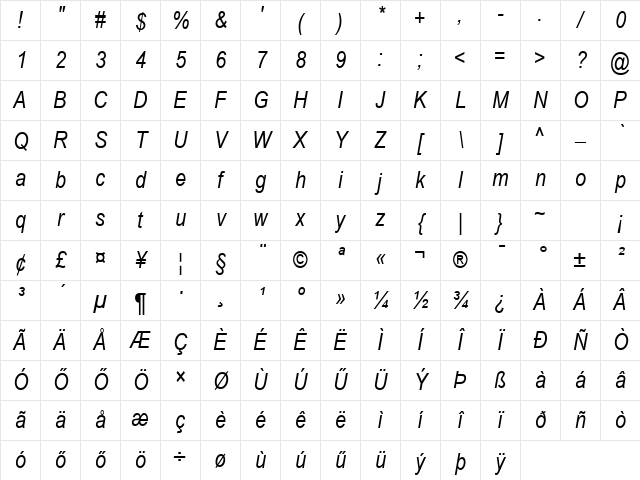
Hu_ArialNI Regular
Design Context for Hu_ArialNI
Hu_ArialNI is a composed and adaptable typeface that performs quietly and consistently across a wide range of design contexts.